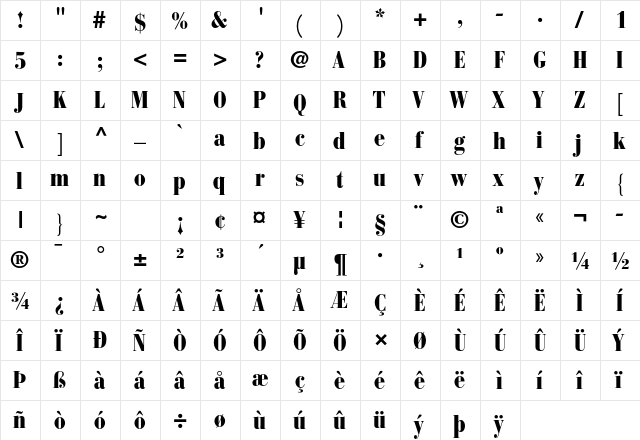
Bauer Bodoni Std 2 Black Condensed
| Designer | Heinrich Jost, Louis Hڬl |
Design Context for Bauer Bodoni Std 2 Typeface
Bauer Bodoni Std 2 is a composed and adaptable typeface that performs quietly and consistently across a wide range of design contexts. The condensed width makes it efficient for tight spaces without sacrificing legibility.